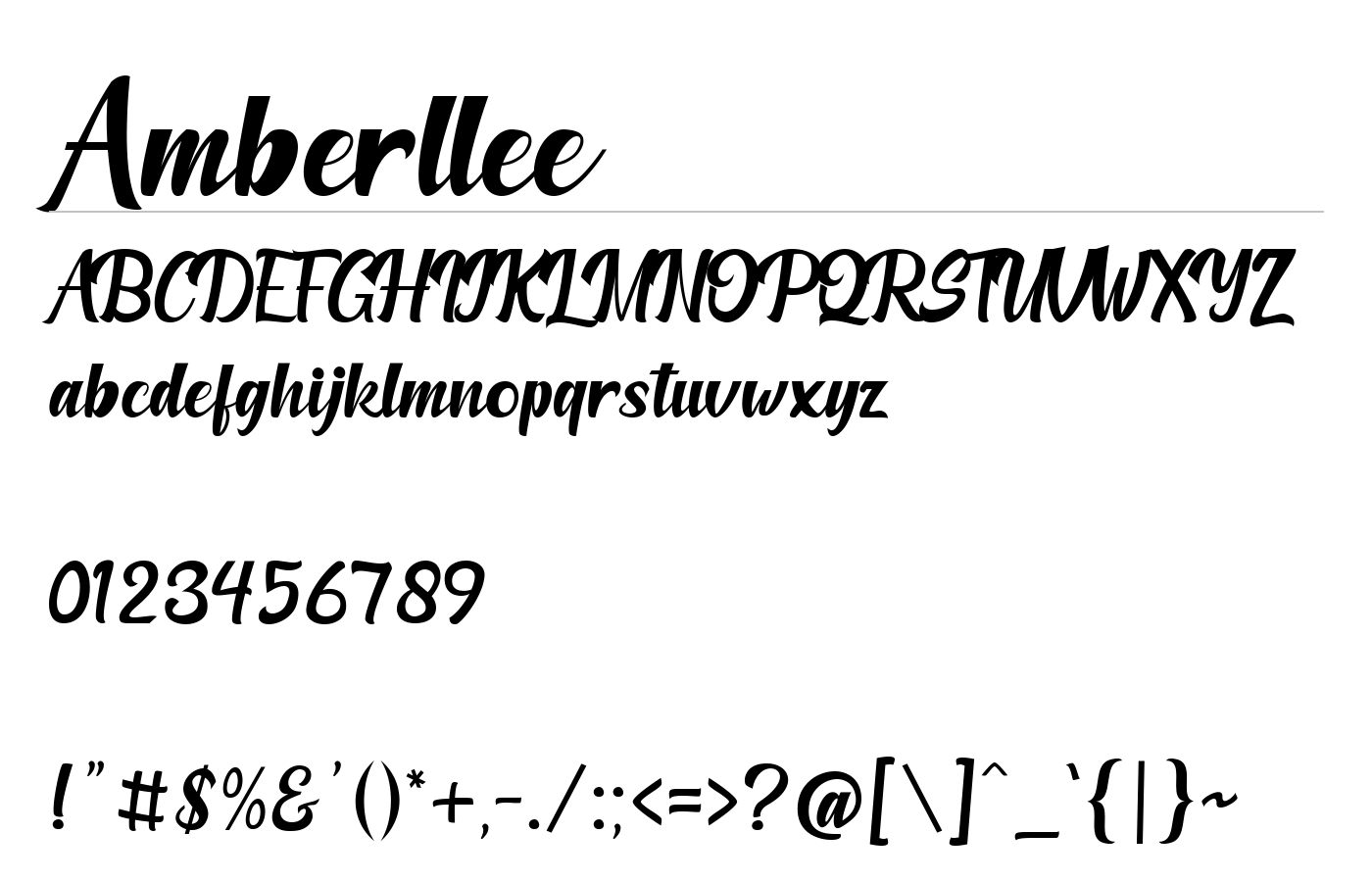
Amberllee is an elegant script font with smooth, flowing strokes and moderate contrast, giving it a refined yet approachable feel. Its slightly italicized, brush-like letterforms exude a handcrafted charm that works beautifully for branding, invitations, and stylish headlines. This font is ideal for projects seeking a sophisticated yet friendly look that combines modern flair with classic calligraphic influences.
Amberllee Font